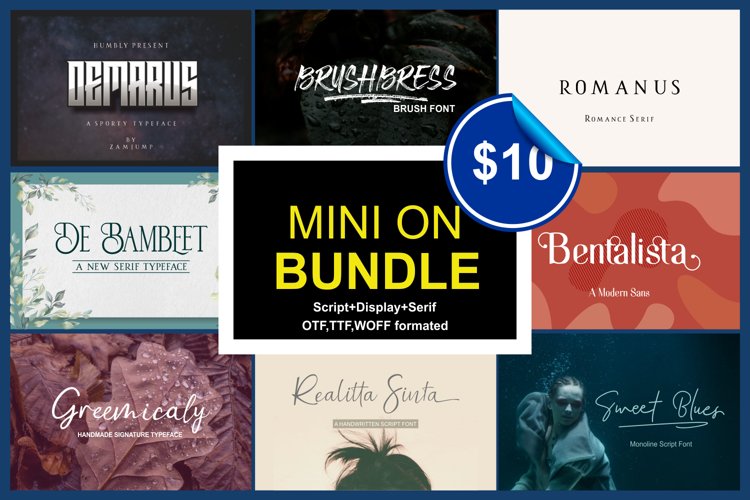
Mini on Bundle
BLUEROCKS
Emberclaws
LEVIONA
Sweet Blues
Elmasive
blantic
hello moms
Raqilla Kids
Brushbress
greemicaly
Gethucks
Bentalista
ROMANUS
De Bambeet
Hillya
Realitta Sinta
DEMARUS
mini on bundle is a bundle that contains 12 font files mixed between script, display and serif. This bundle is specially made in early 2021. and is the font of choice in 2020. This bundle was created on purpose to give you new collections, new styles and new experiences. Enable the OpenType Stylistic alternates, you need a program that supports OpenType features such as Adobe Illustrator, Adobe Indesign, Adobe Photoshop, CorelDraw & Microsoft Office. a font that made the hand by having the character up and down like a dancer. Freestyle has a very unique style of signature, it is very suitable for use in the work of modern design.
Alternative ending character you can use character + underscore ( a_ ) = ending a with swash to open ligature just tap double character [ l l = ll (ligature)]